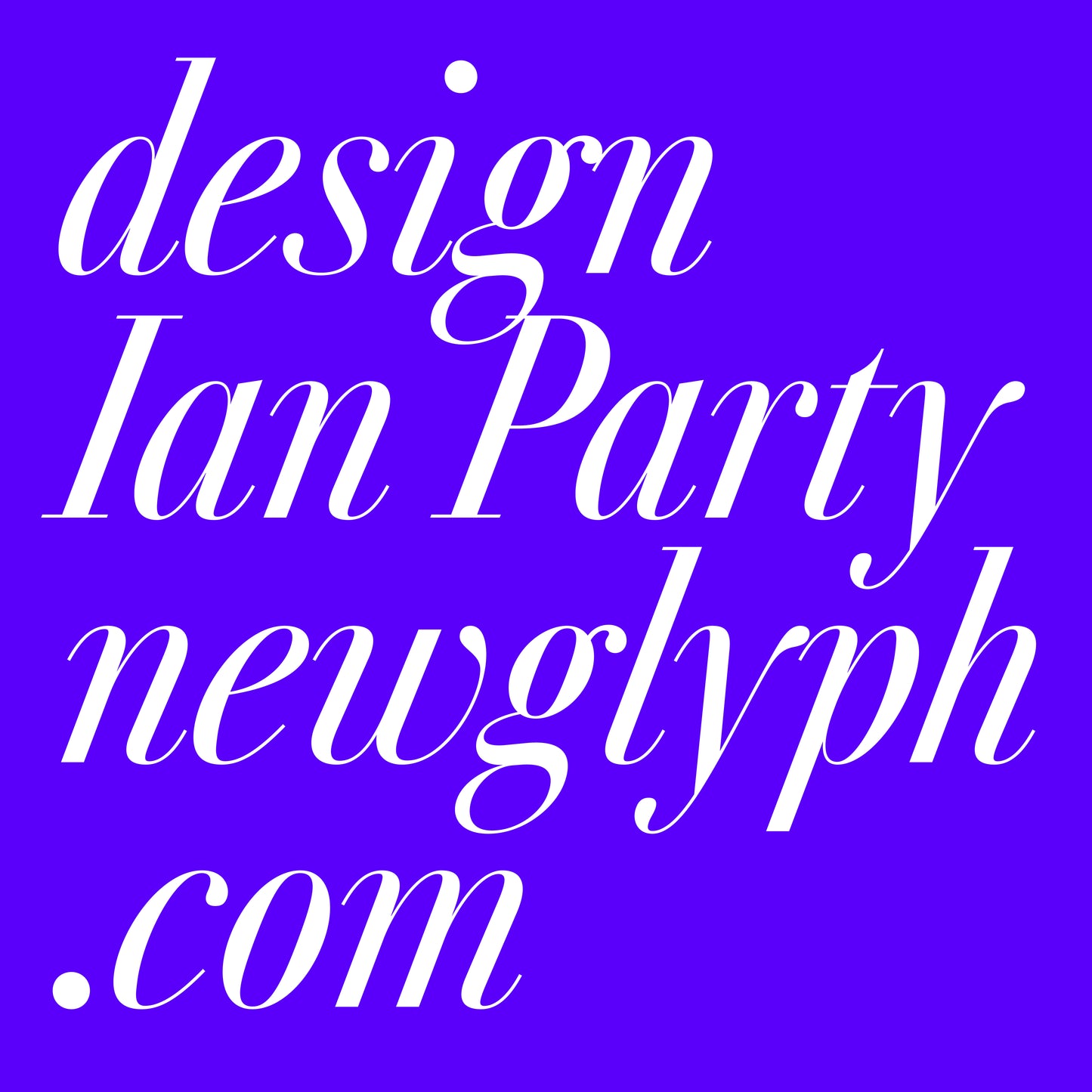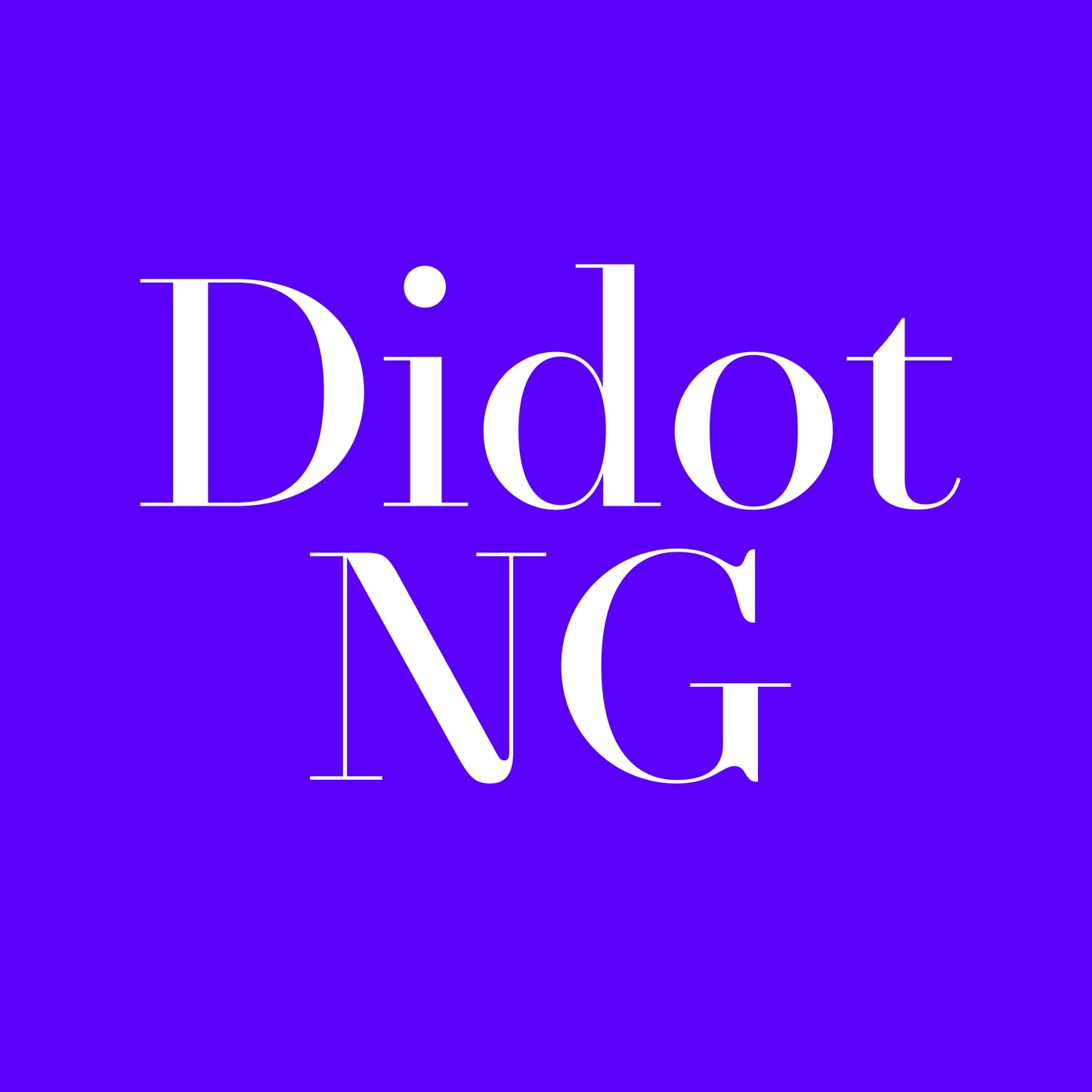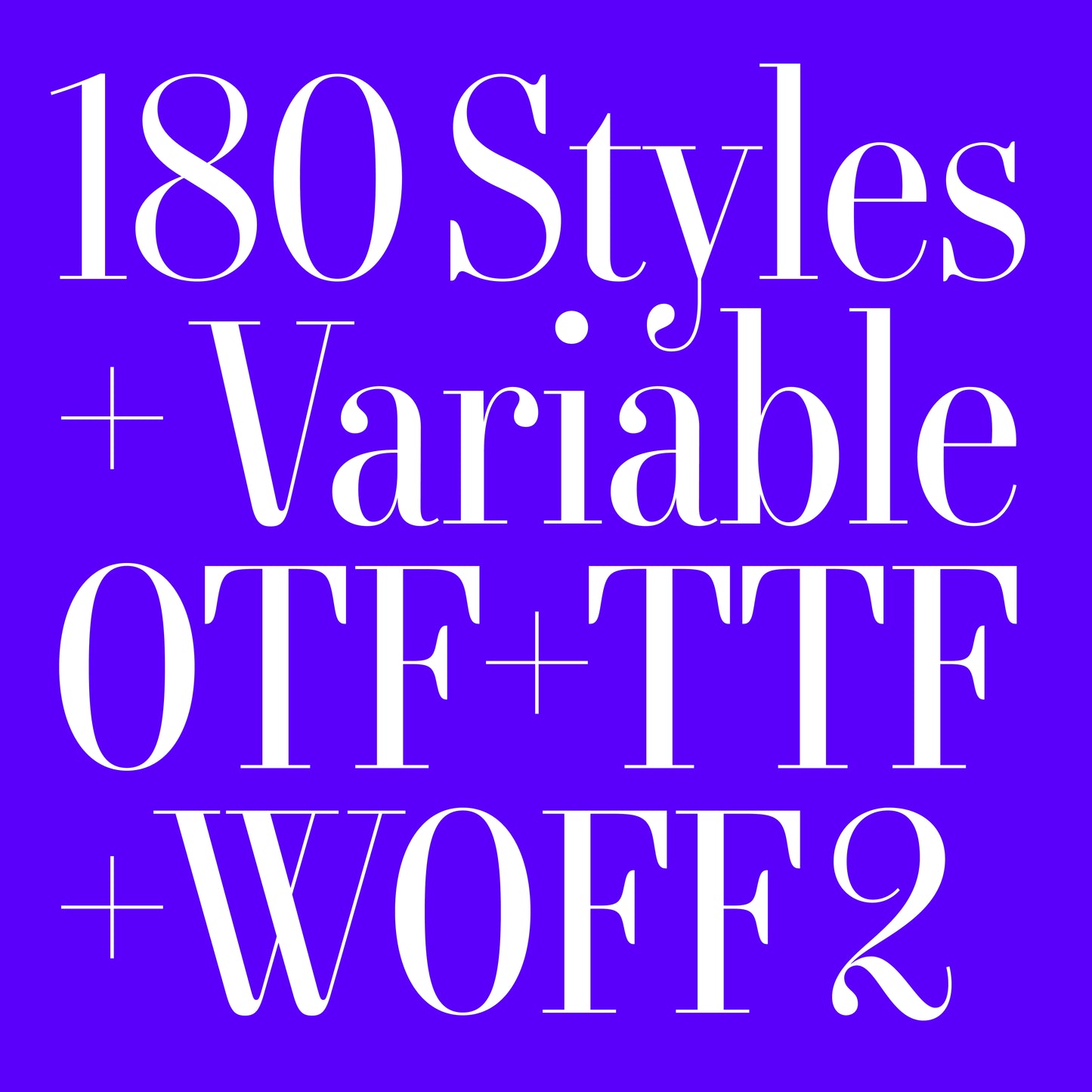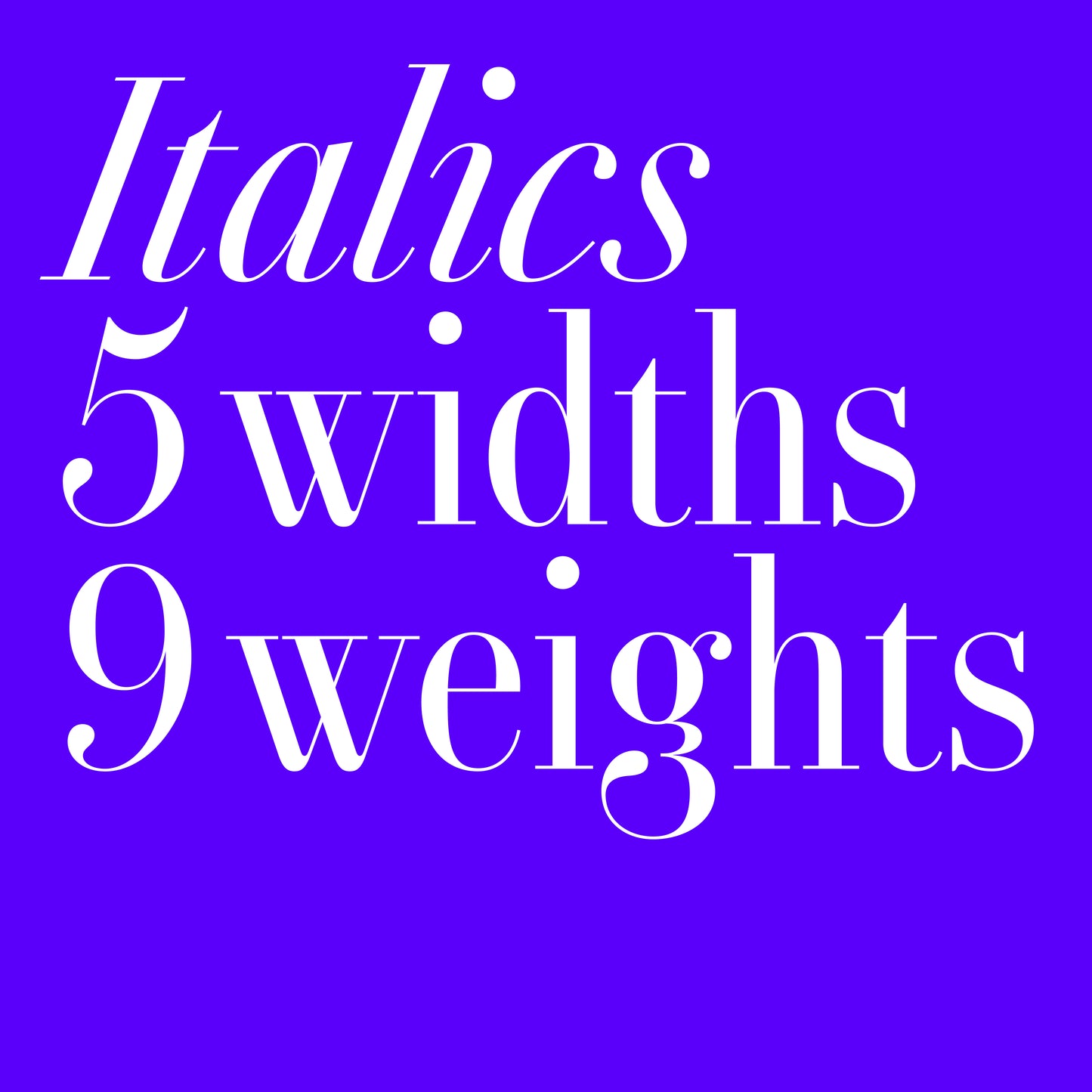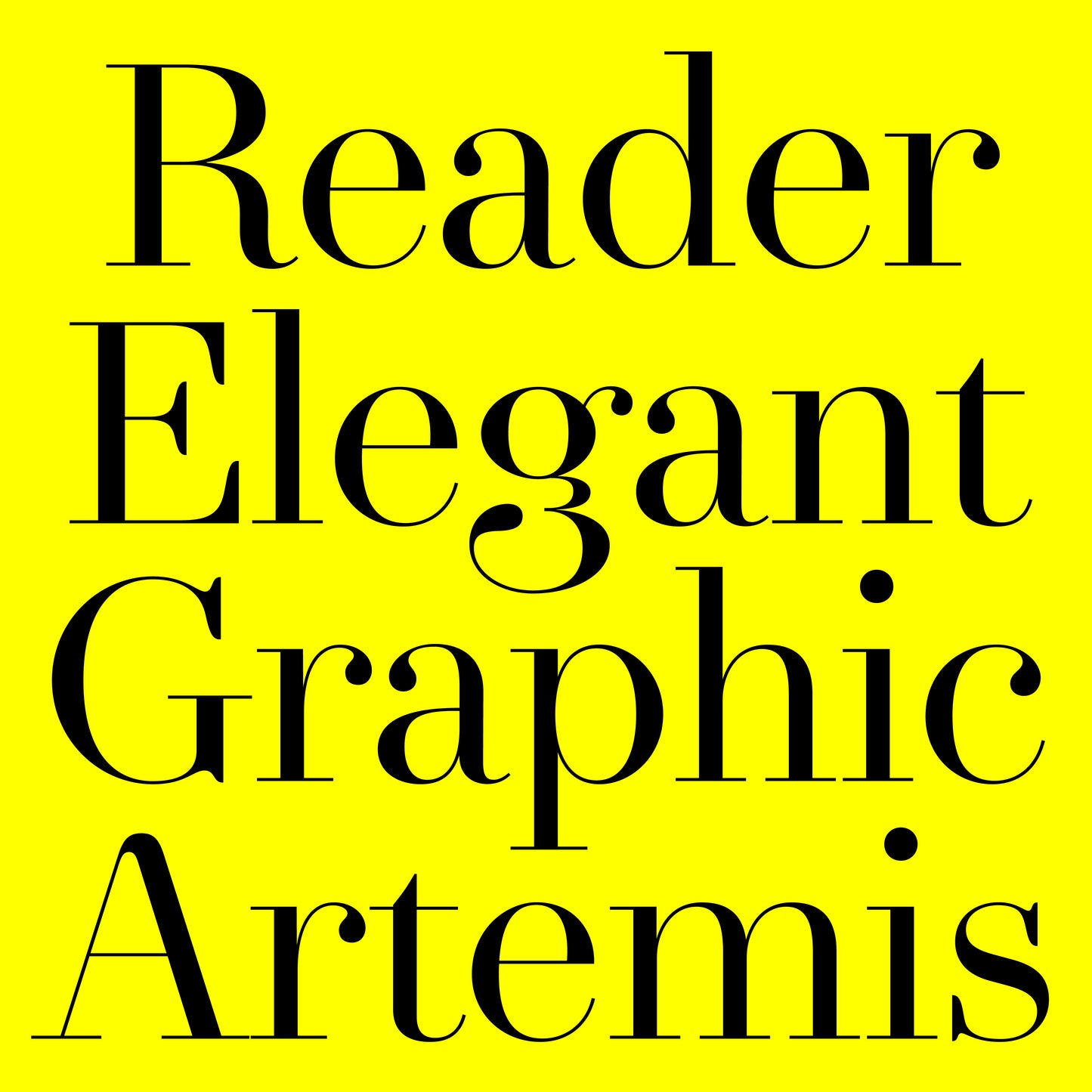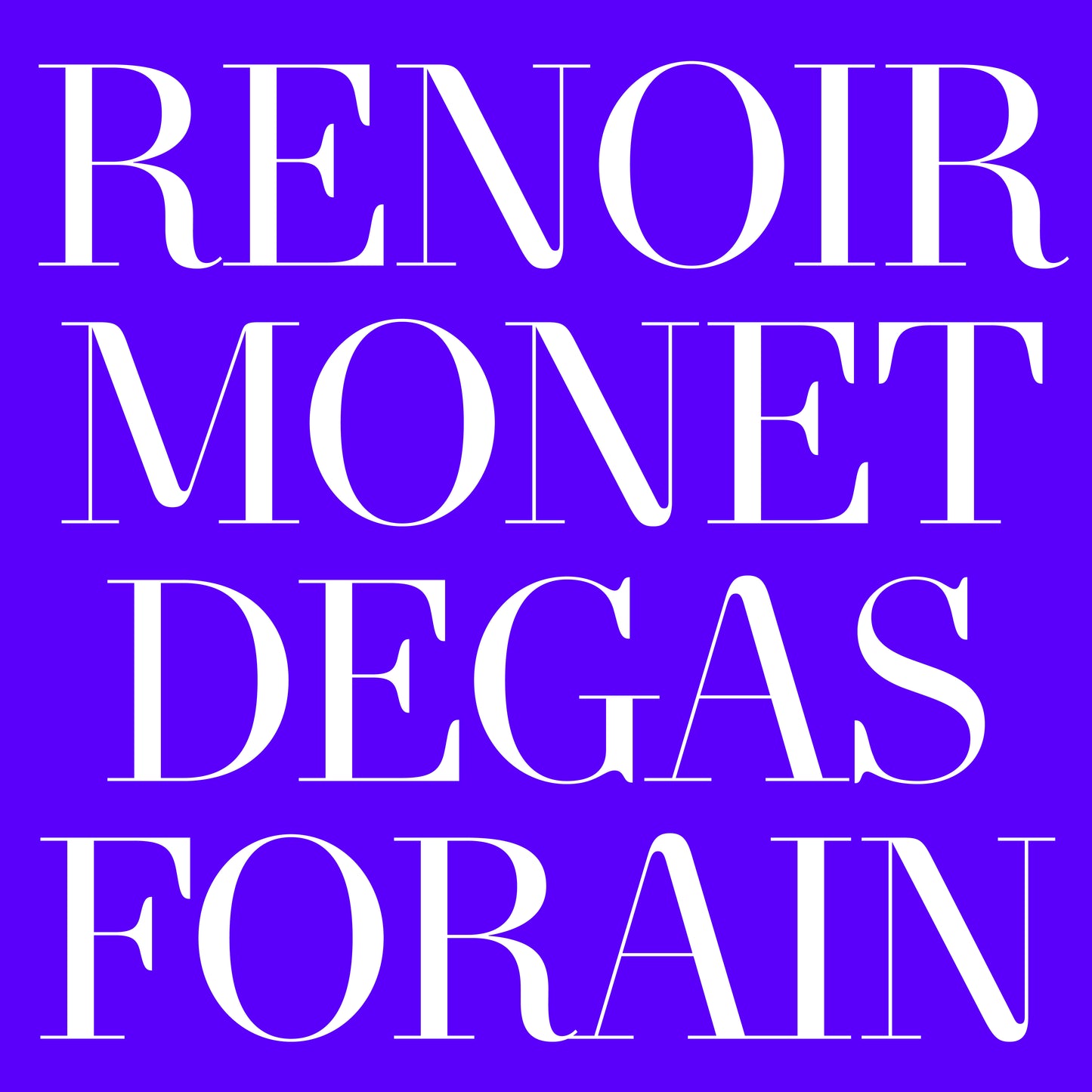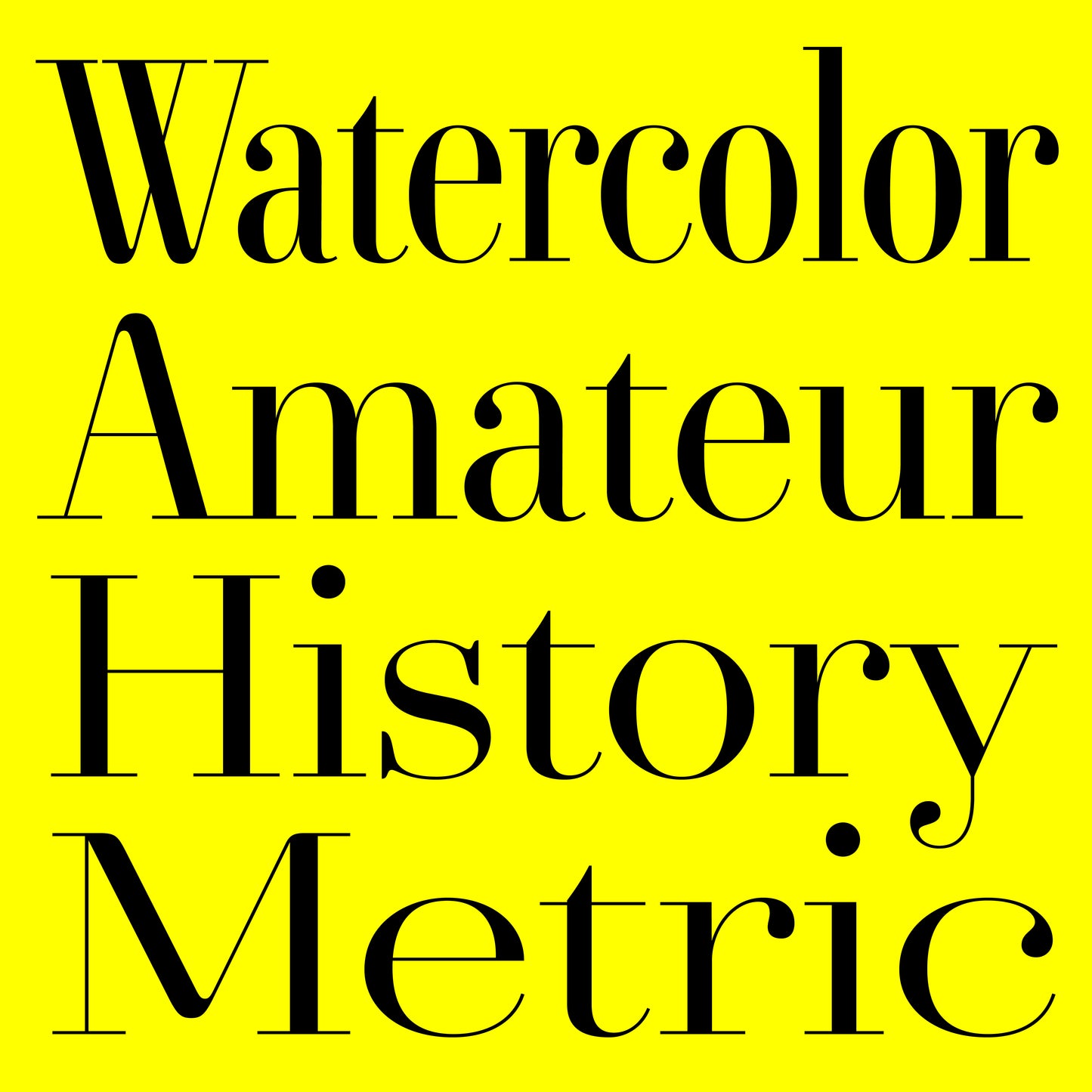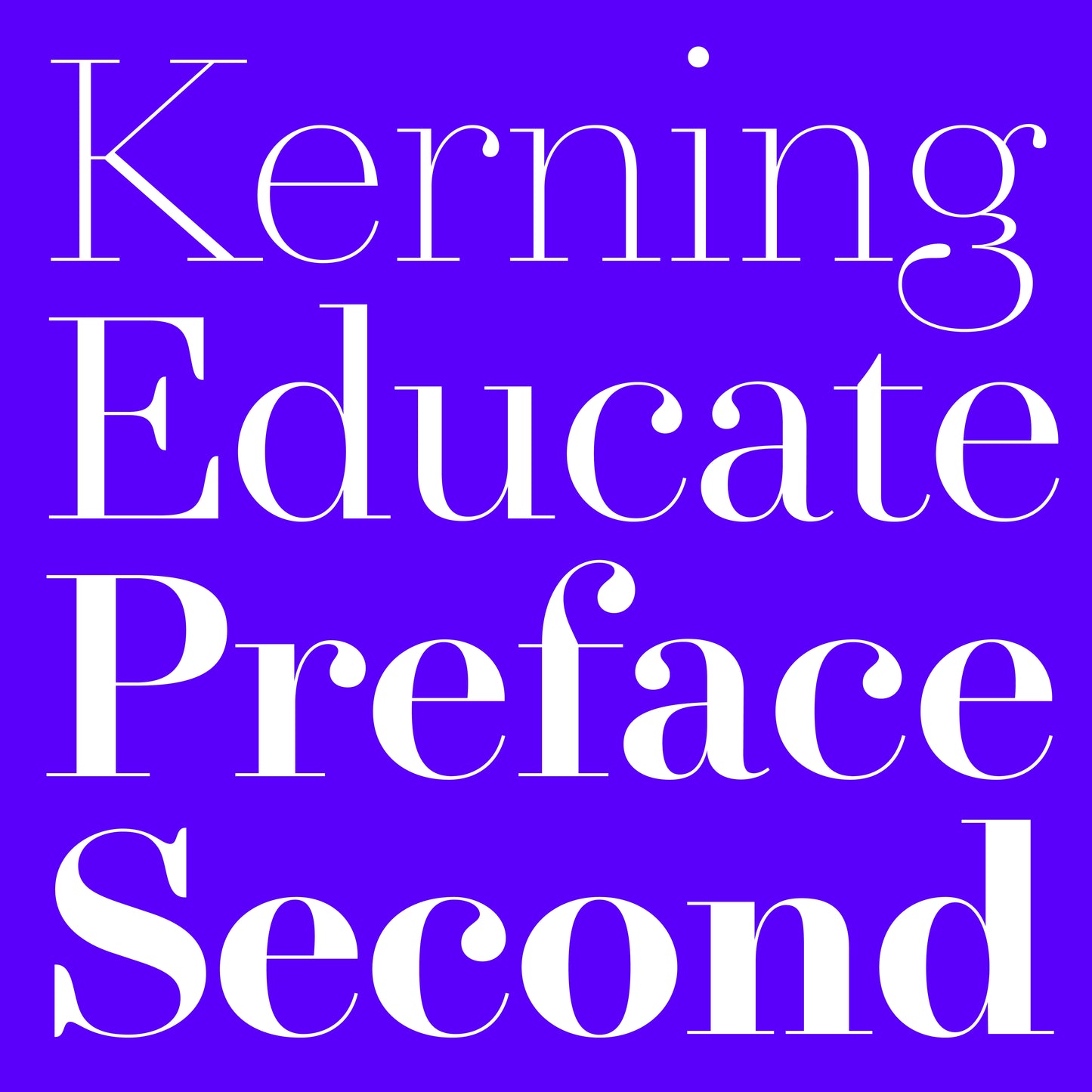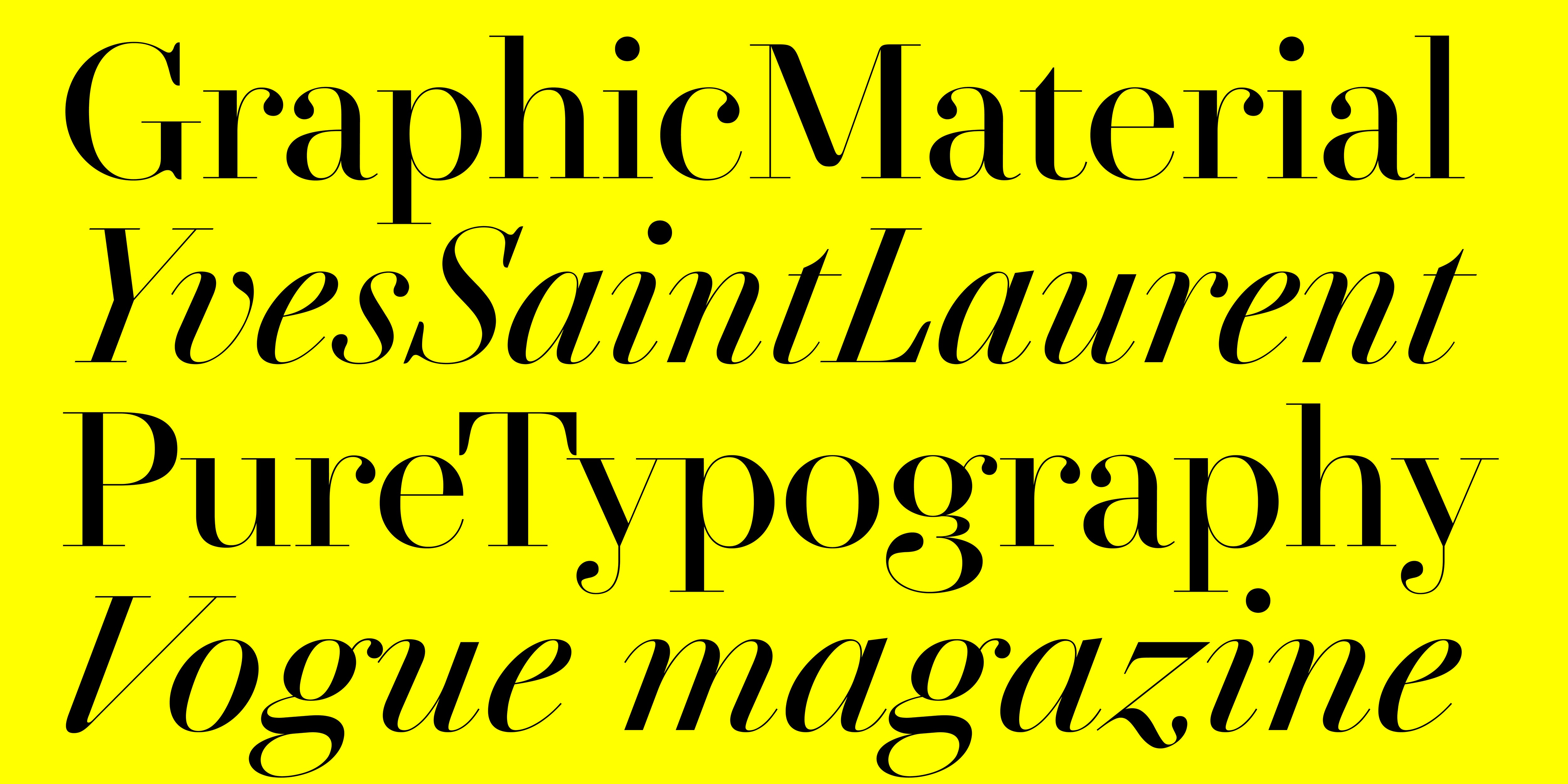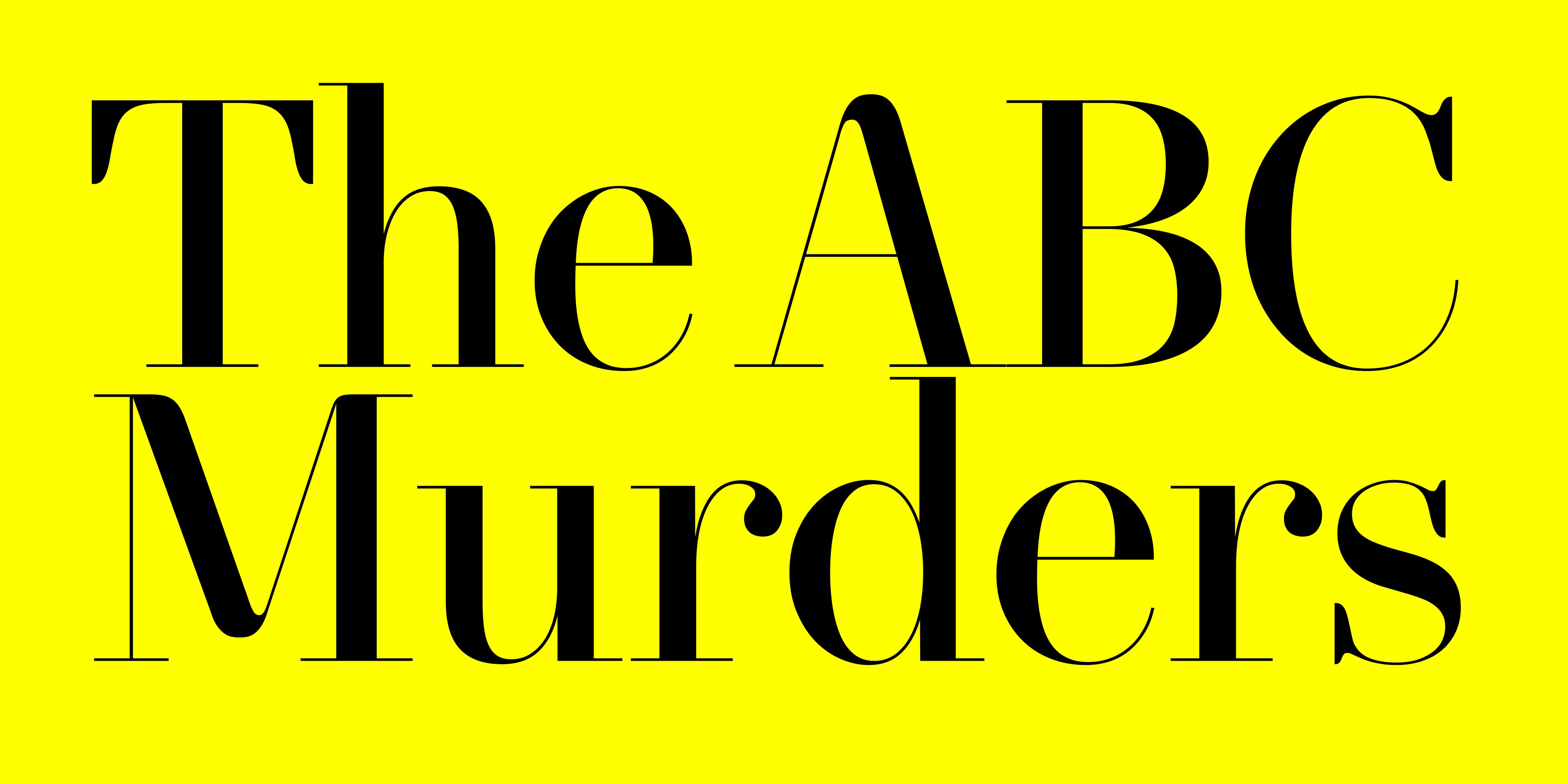
Didot NG
Didot NG,  designed by Ian Party, is a contemporary reinterpretation of the iconic Didot typefaces of the 19th century, blending neoclassical elegance with modern versatility. Inspired by the refined contrast and sharp precision of traditional Didots, this typeface reimagines their timeless sophistication for today's design landscape.
As a variable font, Didot NG offers unparalleled flexibility, allowing designers to seamlessly adjust weight and contrast to fit any project. From high-fashion editorials to luxury branding and striking digital compositions, its adaptability ensures a perfect balance of strength and grace.